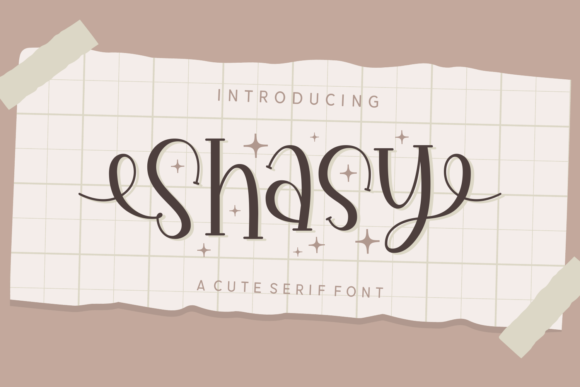
**Introducing Shasy: The Serif Font That Will Captivate Your Audience**
Immerse yourself in the enchanting world of Shasy, the captivating serif font that will add a touch of whimsy and sophistication to your creative endeavors. Specifically designed with children's reading in mind, Shasy's well-balanced and diverse characters ensure effortless readability, making it the perfect choice for educational materials, children's books, and any project targeting young minds.
Beyond its readability, Shasy's unique charm lies in its ability to render informal and child-related projects with unparalleled grace. Its versatility extends to a wide array of applications, from playful invitations and delightful posters to captivating social media posts and charming branding materials.
**Why Choose Shasy?**
* **Unleash Your Creativity:** Shasy's expansive character set, complete with a comprehensive range of glyphs and swashes, empowers you to unleash your creativity and craft truly exceptional designs.
* **Effortless Readability:** Meticulously crafted with young readers in mind, Shasy's balanced and varied characters ensure effortless readability, making it the perfect choice for educational materials and children's literature.
* **Versatility at Your Fingertips:** Shasy's adaptability knows no bounds. Its ability to elevate both informal and child-related projects makes it an indispensable tool for designers, educators, and anyone seeking to create captivating content.
* **Effortless Charm:** Experience the irresistible charm of Shasy's well-crafted characters, which will infuse your designs with a touch of whimsy and sophistication that will leave a lasting impression on your audience.
**Embrace the Power of Shasy**
Step into the extraordinary world of Shasy and elevate your creative projects to new heights. Its captivating design and versatility make it the perfect choice for a wide range of applications, ensuring that your designs stand out from the crowd.